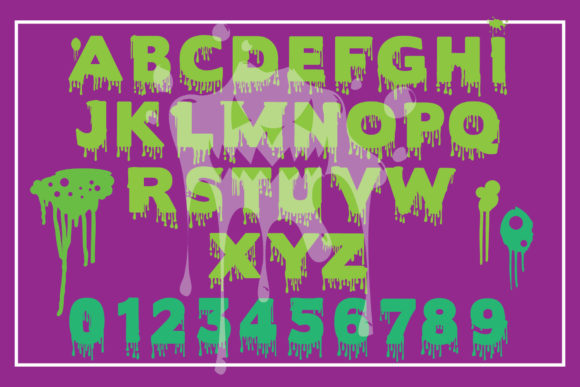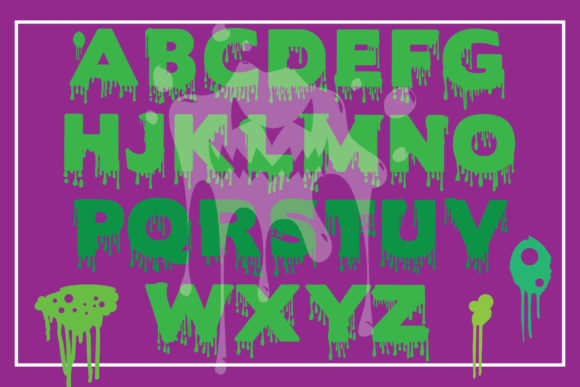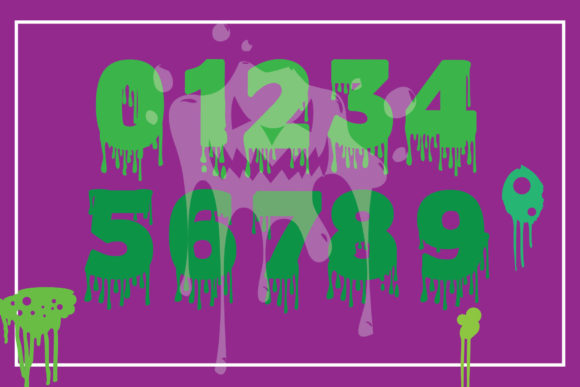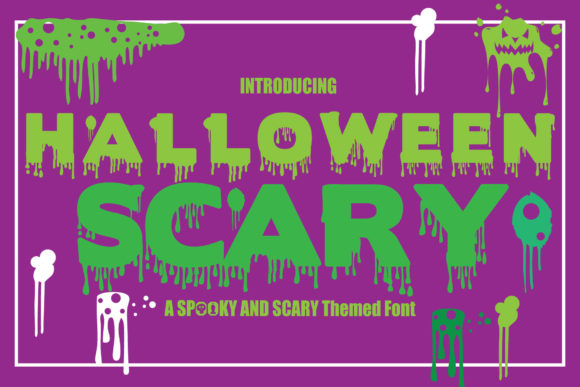
Unleash the Spook: Elevate Your Halloween Designs with Halloween Scary Font
As the spookiest time of the year approaches, designers and crafters are on the lookout for the perfect typography to give their Halloween-themed projects a chilling edge. If you’re searching for a font that’s sure to send shivers down the spine, look no further than the Halloween Scary Font. This thick lettered and spooky display font is specifically designed to add a haunting touch to your Halloween designs, making it an indispensable asset for anyone looking to create eye-catching and eerie content.
What Makes Halloween Scary Font So Special?
The Halloween Scary Font stands out from the crowd with its bold, thick letters that scream Halloween. Its spooky display style is perfect for grabbing attention and setting the tone for a spine-tingling celebration. Whether you’re working on invitations, posters, social media graphics, or any other design project related to Halloween, this font is sure to make your creations stand out.
One of the key features that make the Halloween Scary Font incredibly user-friendly is its PUA (Private Use Area) encoding. This means that accessing all the glyphs and swashes is a breeze, allowing you to effortlessly add intricate details and flourishes to your designs. With PUA encoding, you don’t have to worry about complicated font editing or searching for specific characters; everything you need is right at your fingertips.
The versatility of the Halloween Scary Font is another one of its major advantages. Its bold and spooky style can be adapted to a wide range of design ideas, from:
- Halloween party invitations and decorations
- Eerie posters and flyers
- Spine-tingling social media graphics and captions
- Creepy crafts and DIY projects
- Haunting website headers and banners
Whatever your design vision, the Halloween Scary Font provides the perfect foundation for creating eye-catching and thematic content that captures the essence of Halloween.
Tips for Using Halloween Scary Font
To make the most of the Halloween Scary Font, here are a few tips:
- Mix and Match: Combine the Halloween Scary Font with other fonts to create a unique contrast. Pairing it with a more elegant or simple font can add depth and interest to your designs.
- Play with Colors: While the font itself is black and bold, don’t be afraid to experiment with different colors. Darker shades like purple, red, and orange can enhance the spooky atmosphere.
- Add Effects: Consider adding text effects like shadows, outlines, or glow effects to make your text pop and give it an eerie glow.
The Halloween Scary Font is a game-changer for designers and crafters looking to infuse their Halloween projects with a spooky and bold style. Its ease of use, thanks to PUA encoding, and its versatility in design applications make it an essential tool in your Halloween design arsenal. Whether you’re a professional designer or a DIY enthusiast, this font is sure to help you create Halloween content that’s both captivating and chilling. So, why wait? Dive into the world of spooky typography and let the Halloween Scary Font unleash the spook in your designs.